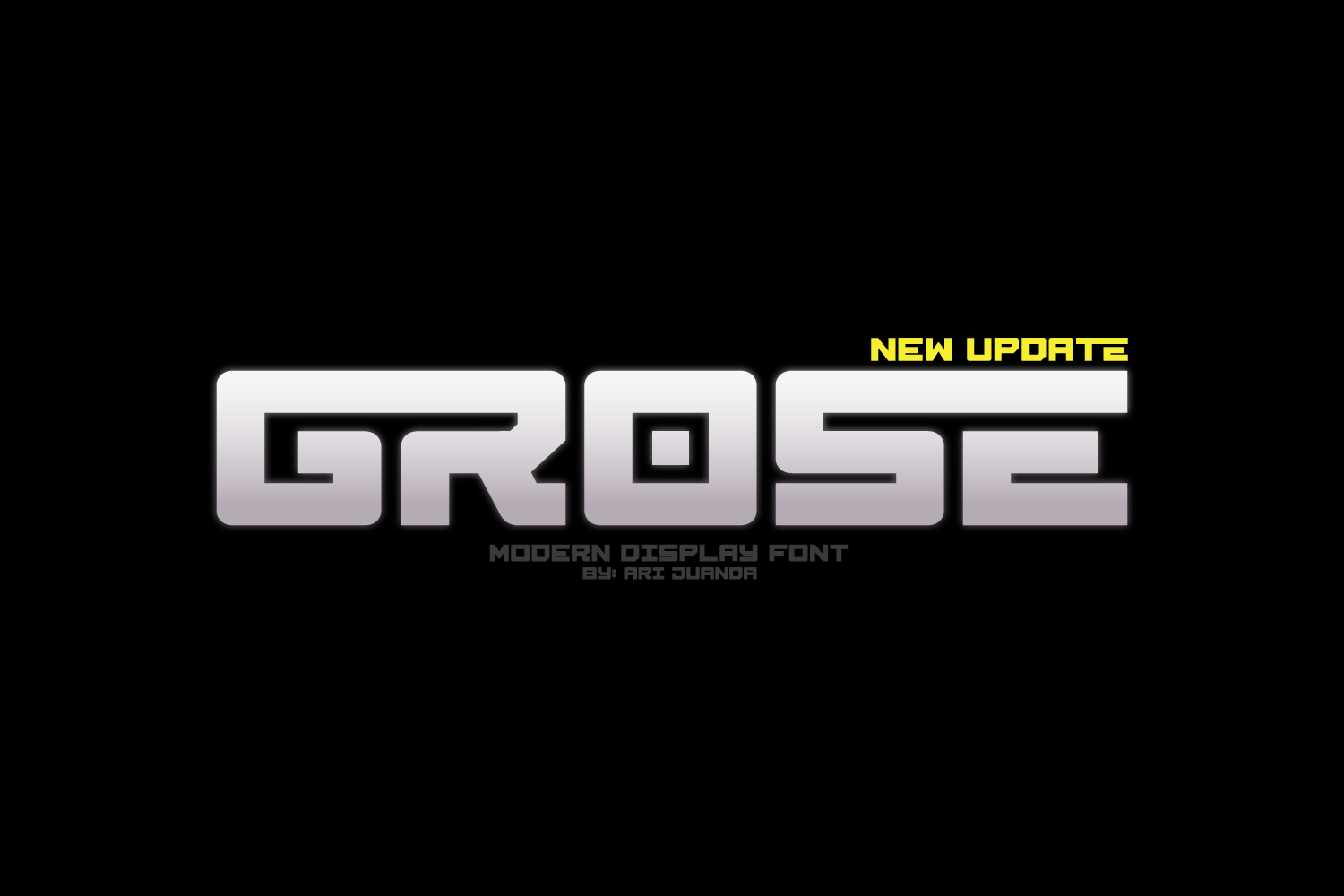
Grose - Futuristic Font
Grose is a modern san serif font that gives a clean, minimalist and futuristic impression,and Come with ligatures collection. It's Perfect for logo,branding,title, name card, magazin layout,poster, or large scale artwork.
- Grose- A clean San serif font including Upper & Lowercase characters(ALL CAPS)
- Ligatures Character
- Numbers and Punctuation and Supports Multi linguage (Latin Western Europe)